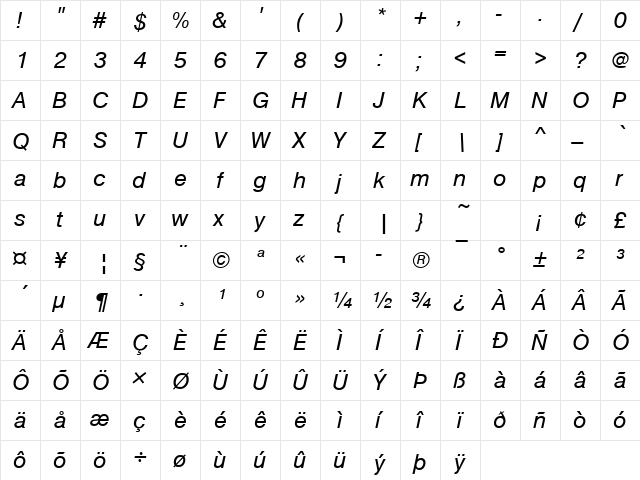
Nimbus Sans Becker D Italic
Nimbus Sans Becker D is a composed and adaptable typeface that performs quietly and consistently across a wide range of design contexts. The dynamic lean of this cut emphasises speed and emphasis in any layout.
Pro Tip: Try Nimbus Sans Becker D for annotation and caption copy alongside an upright companion — the contrast in angle creates a dynamic but ordered typographic system.